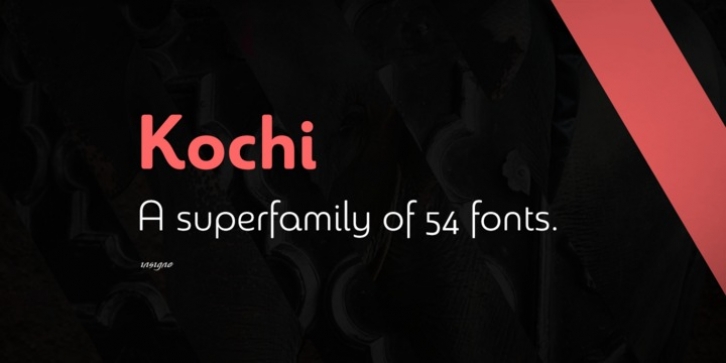
Publisher: insigne
It started in 2007 with Chennai, the first of a three-part series of sans that I envisioned with slab serif counterparts. Each font would differ from the others in how the stem terminals were expressed. The initial font was extremely well received, and a revitalized and remastered Chennai made its appearance two years later, complete with new weights and new, novel OpenType features. Then came Madurai, a variation of Chennai based on the same core, only without the rounded stems. Chennai’s rounded stems made it distinctive and great for headlines but left it lacking appeal as copy--a problem that Madurai easily solved. And now comes Kochi, the final iteration of my original 2007 vision. Kochi is a happy medium. Like Chennai, it’s great for headlines--but not too distinct for copy. Kochi keeps the same core structure as the other two, but new less sharp forms give this latest font a friendlier look that’s more versatile than the original Chennai and less formal than Madurai. The font includes a whole range of six weights from light to black, along with condensed and extended options as well for a total of 54 fonts. There are plenty of OpenType features, including small caps. Alternates include normalized capitals and lowercase letters that include stems for when you want a more traditional look or when you’re writing copy. Kochi also supports over 70 languages that use the extended Latin script. Use Chennai, Madurai, and their slab serif variants interchangeably with Kochi, too, for even more options in your work. All three complement one another well. So when you need a balanced font that stands boldly on the page and commands your reader’s attention, look within and find your Kochi.